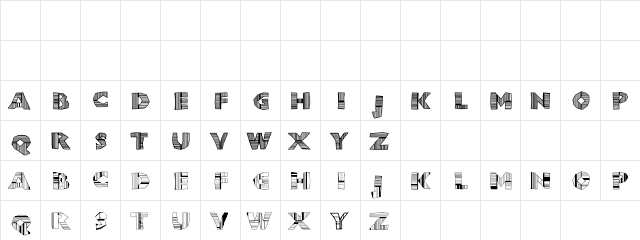
ChunkoBlockoDroppoCapo Regular
Design Context for ChunkoBlockoDroppoCapo Typeface
ChunkoBlockoDroppoCapo is a composed and adaptable typeface that performs quietly and consistently across a wide range of design contexts.